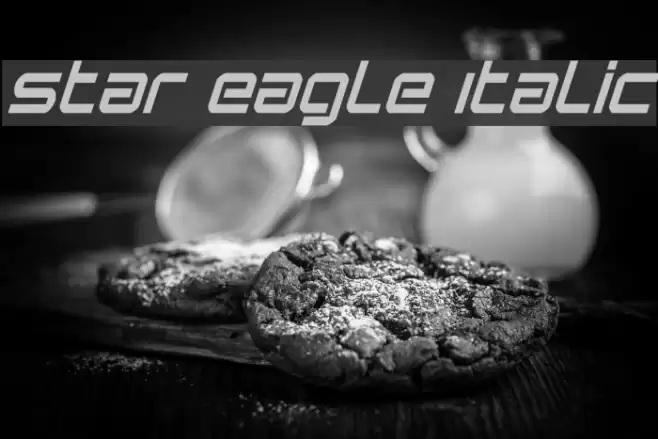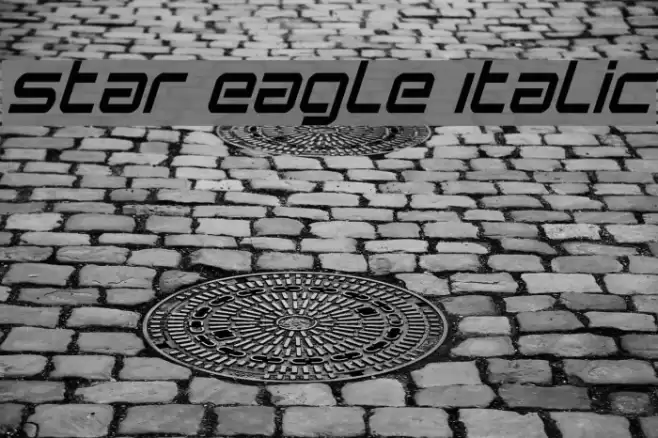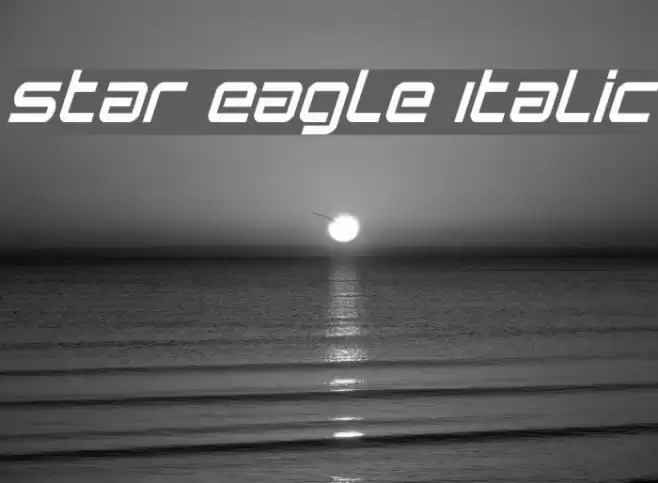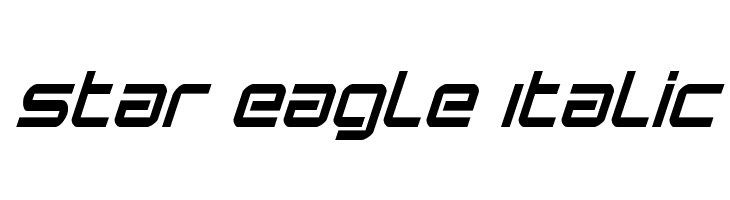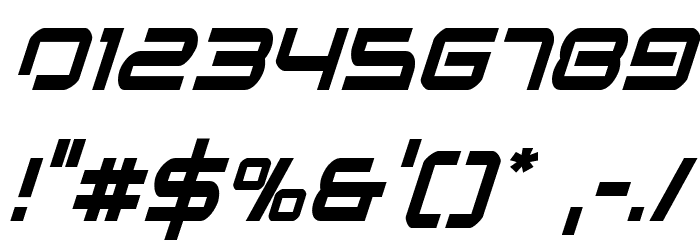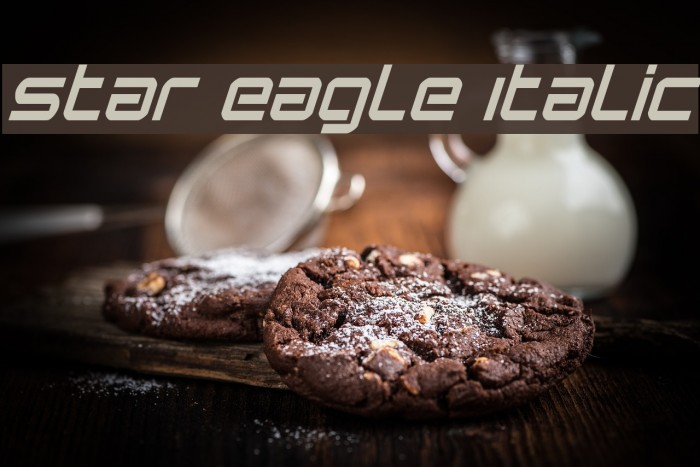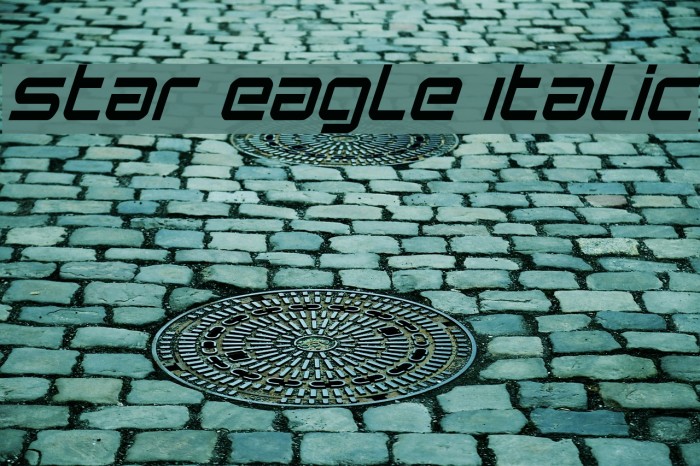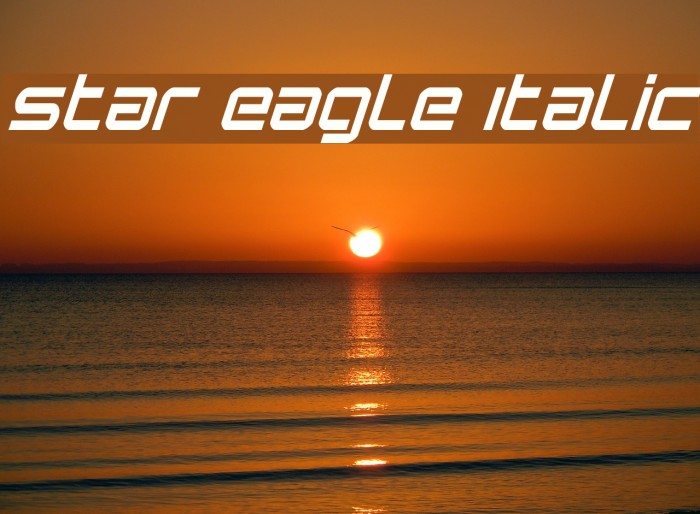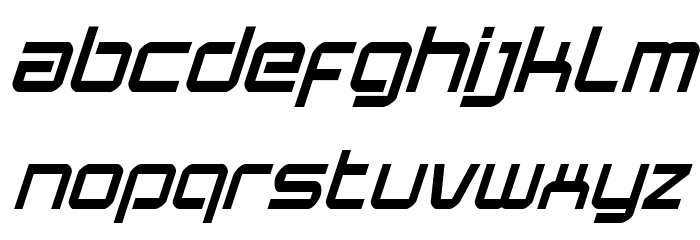
Star Eagle Italic Font
Star Eagle Italic Description
This font features a dynamic and futuristic design, characterized by its italicized and angular letterforms. The characters exhibit a sleek, aerodynamic style, reminiscent of speed and movement. The uppercase and lowercase letters maintain a consistent slant, enhancing the sense of forward motion. The numerals and special characters are designed to complement the overall aesthetic, with sharp edges and a modern flair. The font's structure is clean and geometric, making it suitable for projects that require a contemporary and energetic look.
A dynamic, italicized font with a futuristic and aerodynamic design from Uncategorized fonts.
- Proposed Projects: Ideal for sports branding, automotive designs, tech-related projects, and futuristic themes.